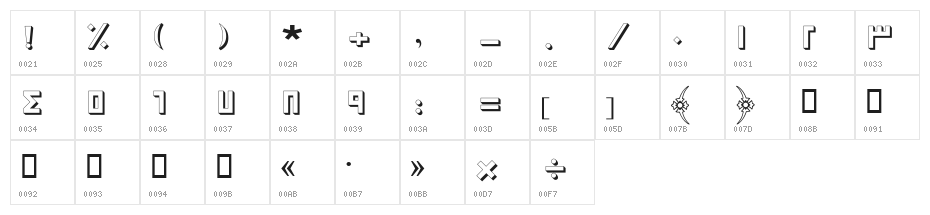
Shadow Font
Shadow Description
This font features a bold, geometric design with a distinct shadow effect that gives it a three-dimensional appearance. The characters are blocky and angular, with consistent stroke widths that create a strong visual impact. The shadowing adds depth and a sense of movement, making it stand out in any design. The uppercase and lowercase letters maintain a uniform style, while the numerals and special characters complement the overall aesthetic. This font is ideal for projects that require a modern and dynamic look.
| Proposed Projects | Ideal for posters, headlines, logos, and branding materials that require a modern and eye-catching design. |